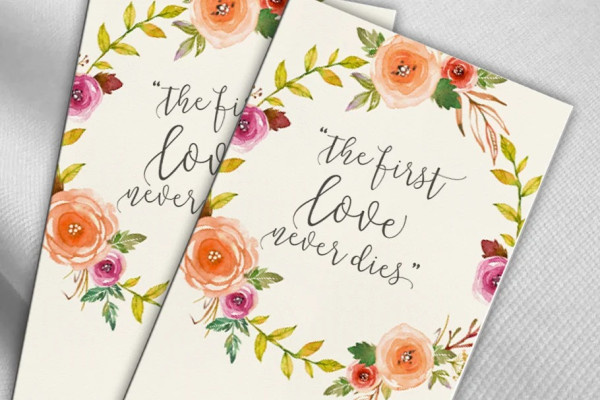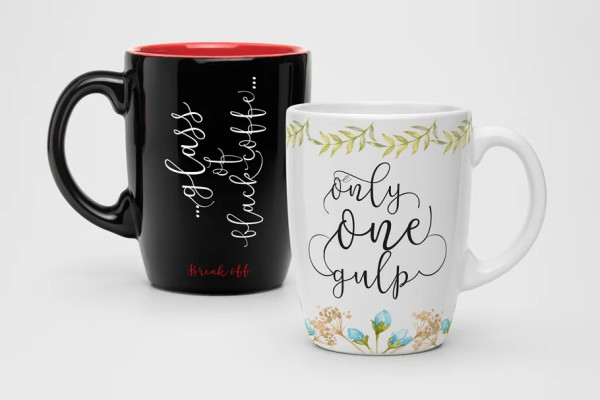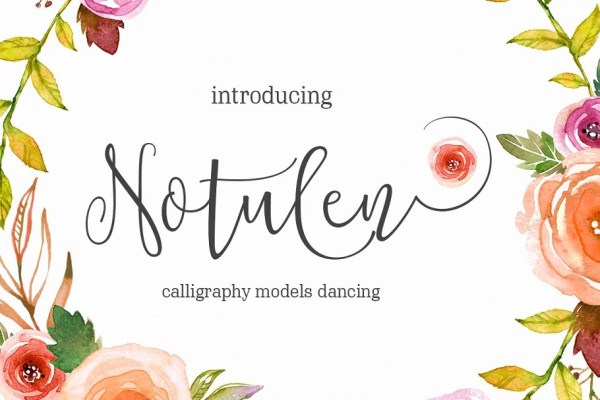
Notulen Font
Notulen Font is is a calligraphy font, has written a model dancing, so beautiful and unique, it is a model of modern calligraphy typefaces, in combination with a calligraphy writing style.